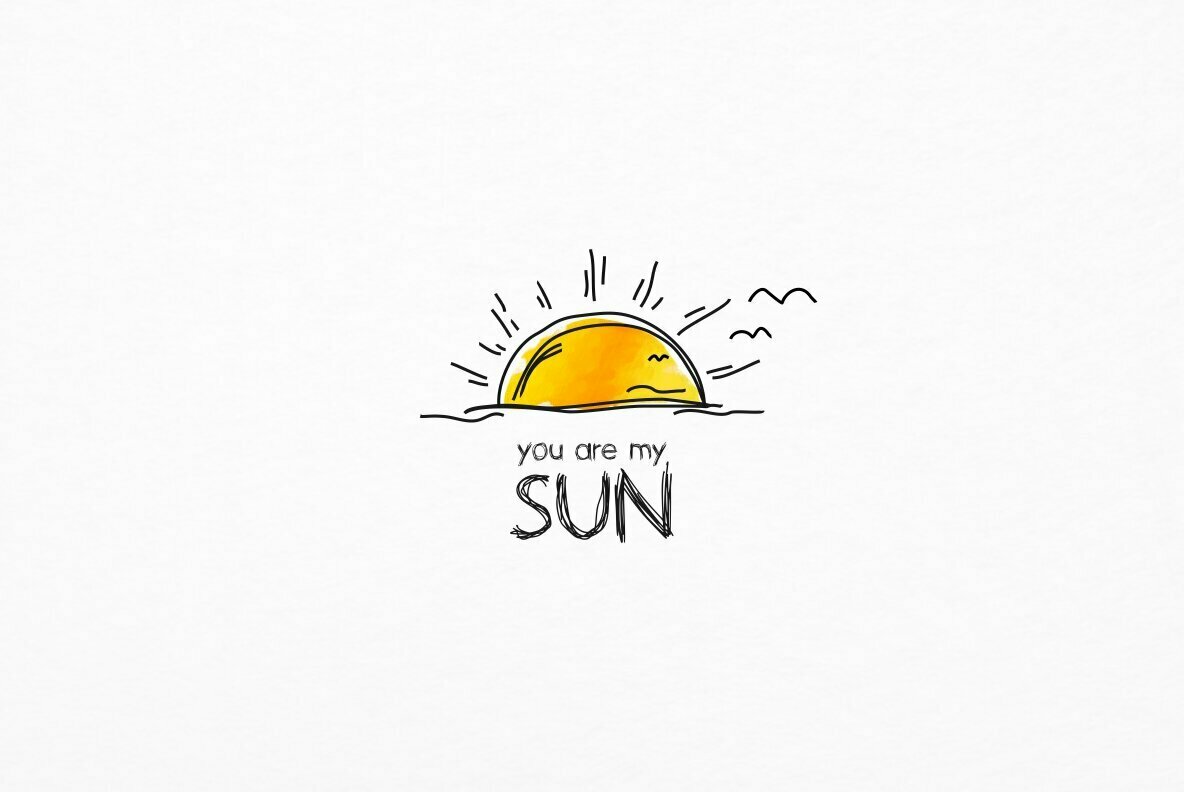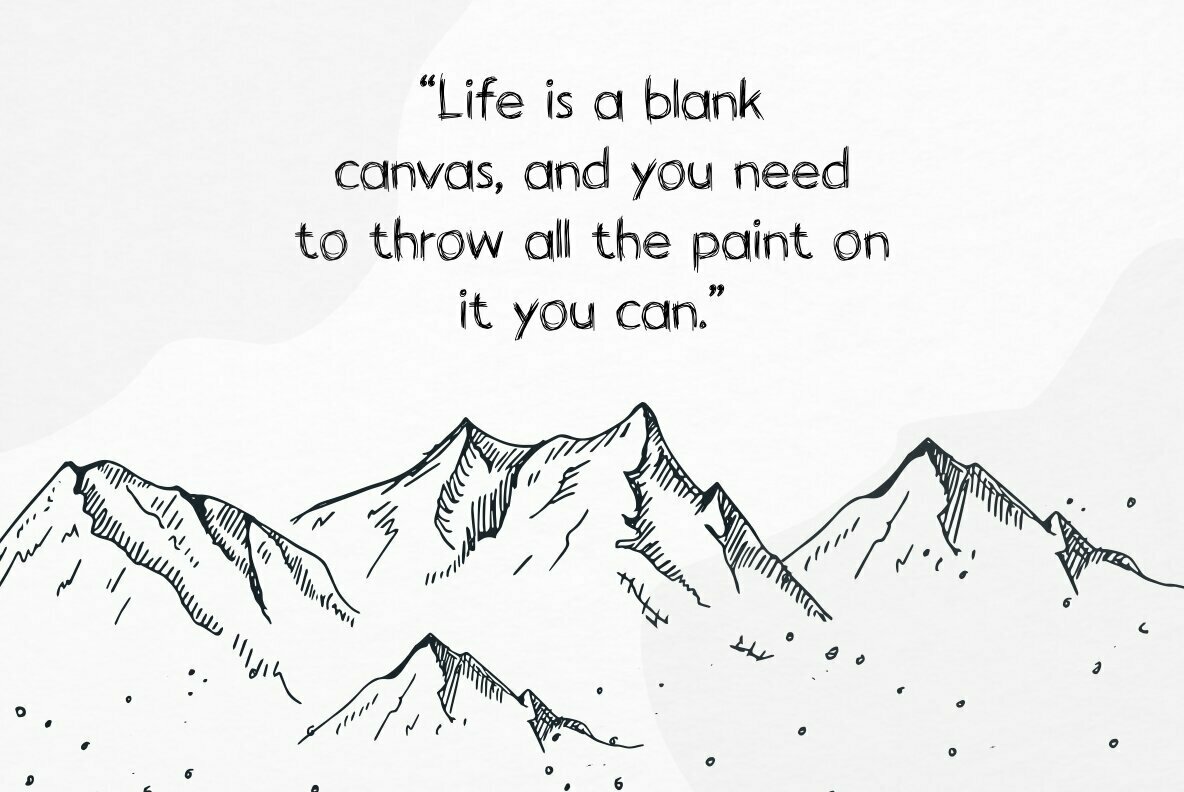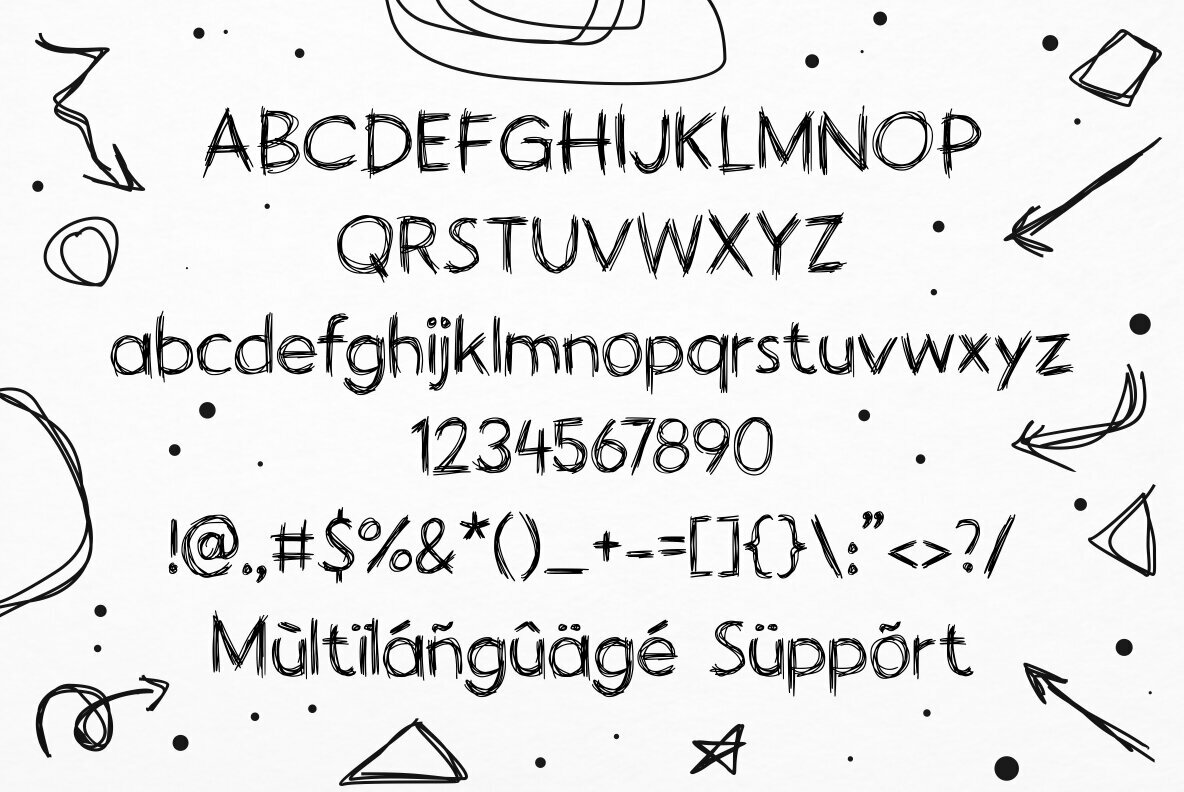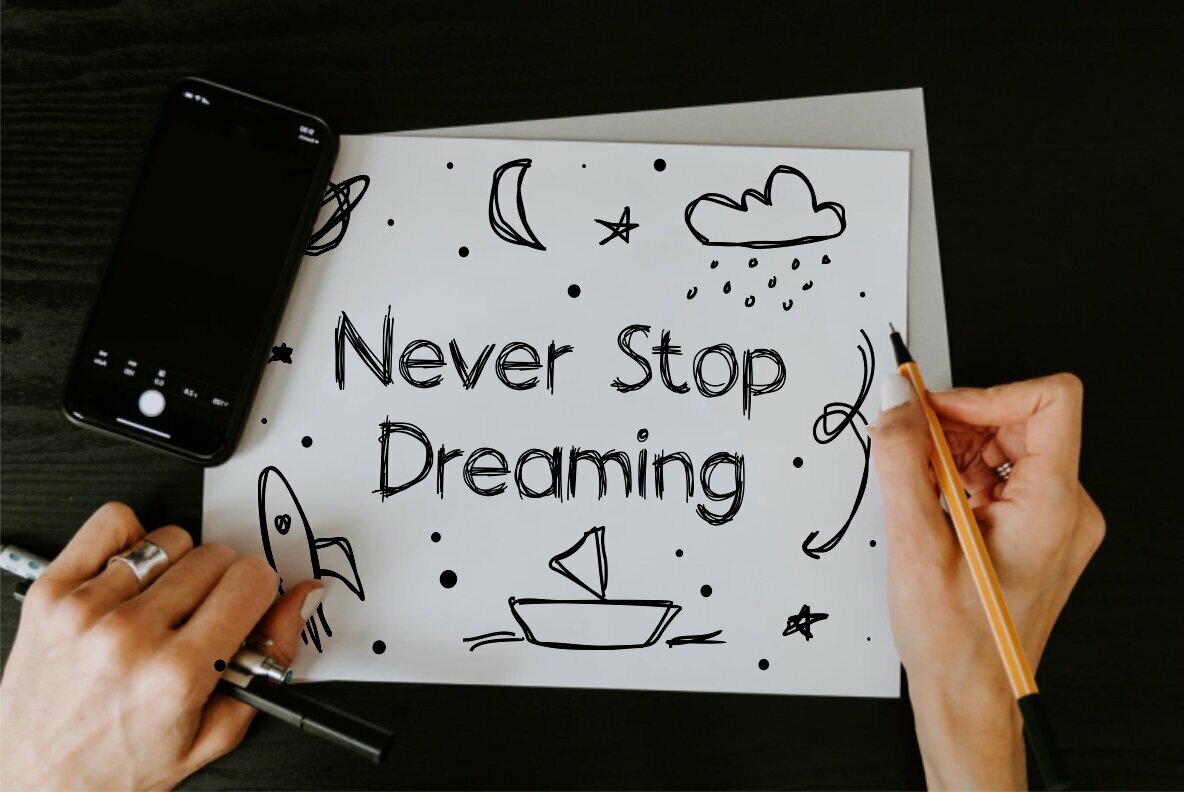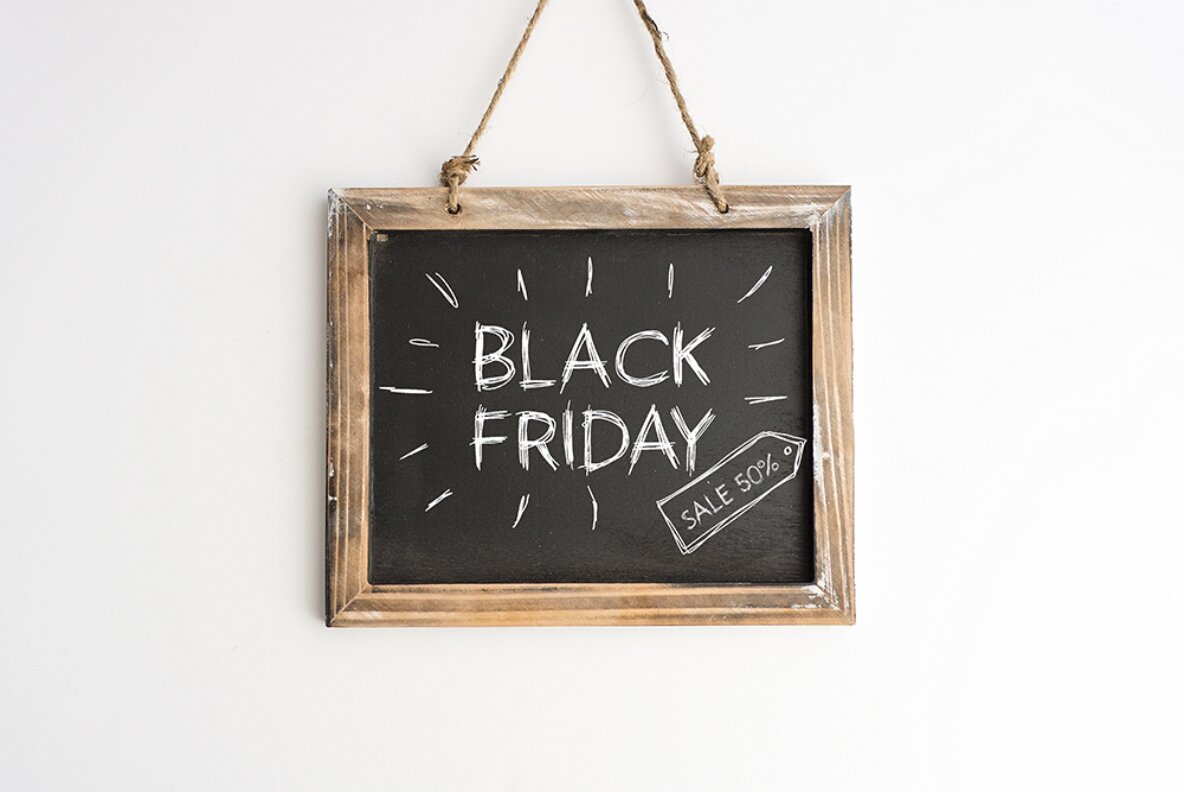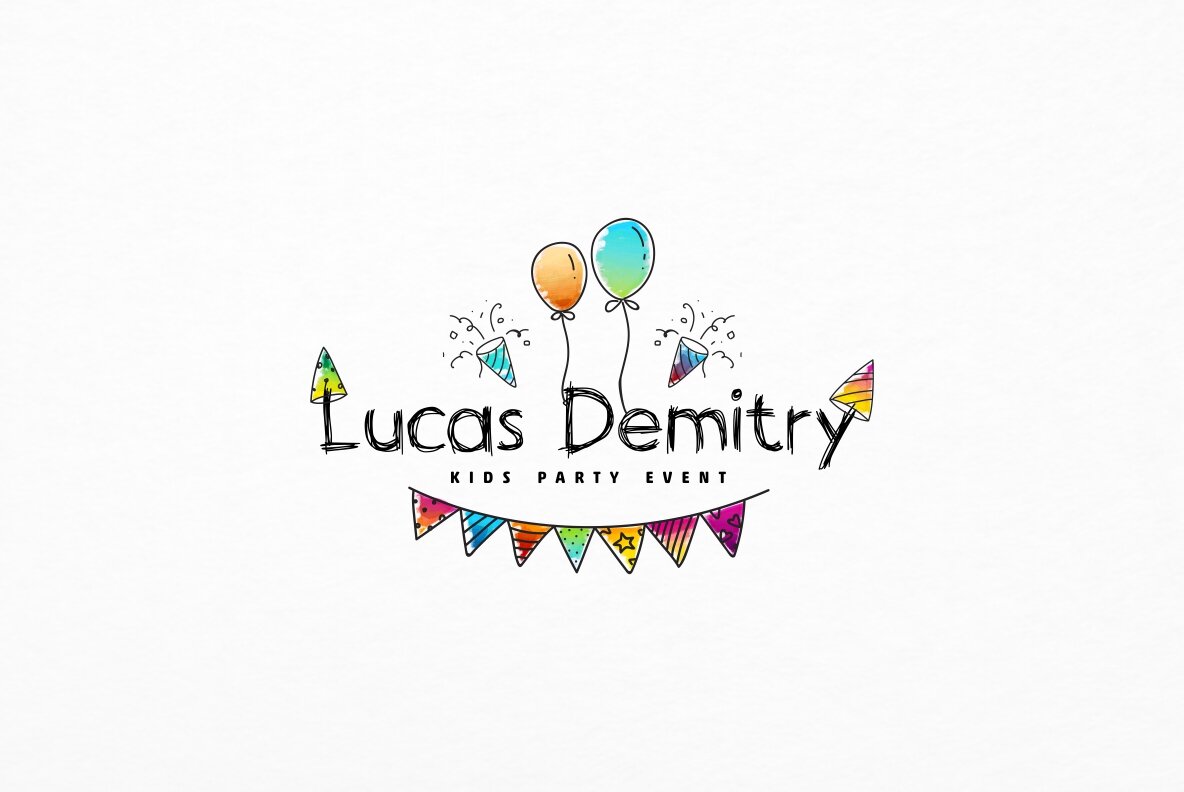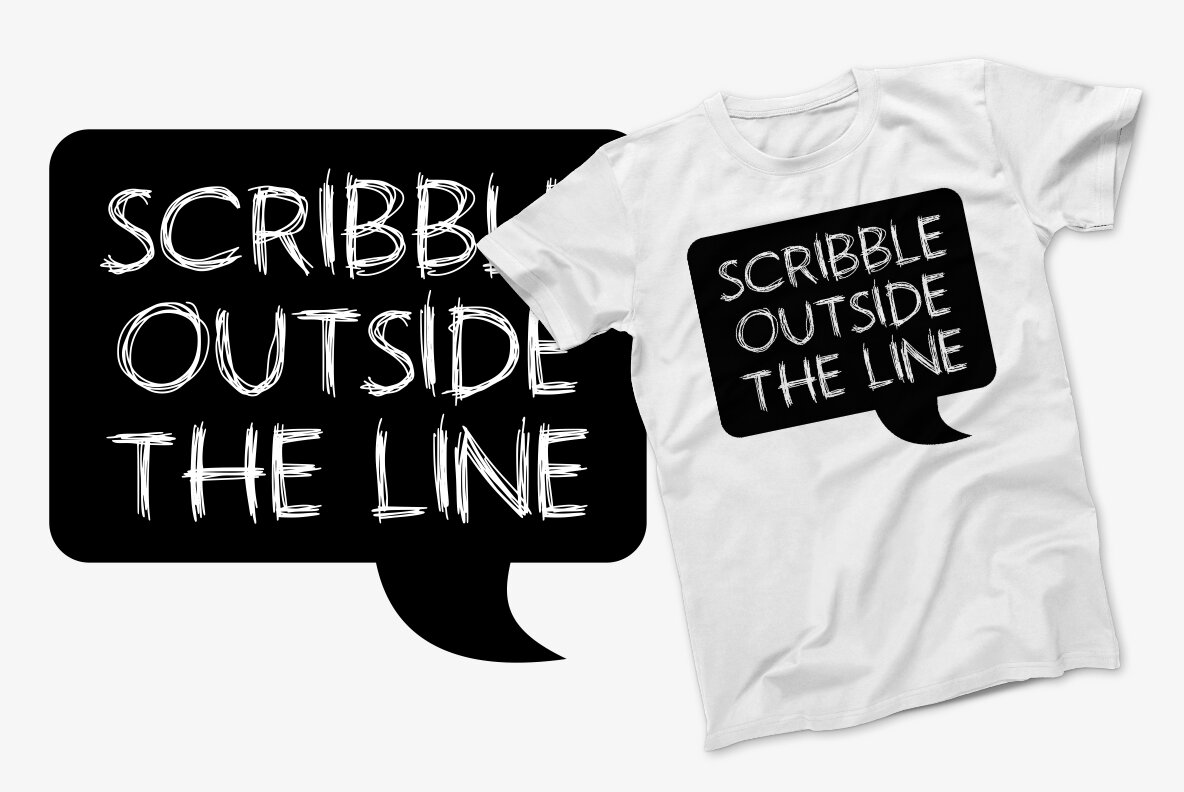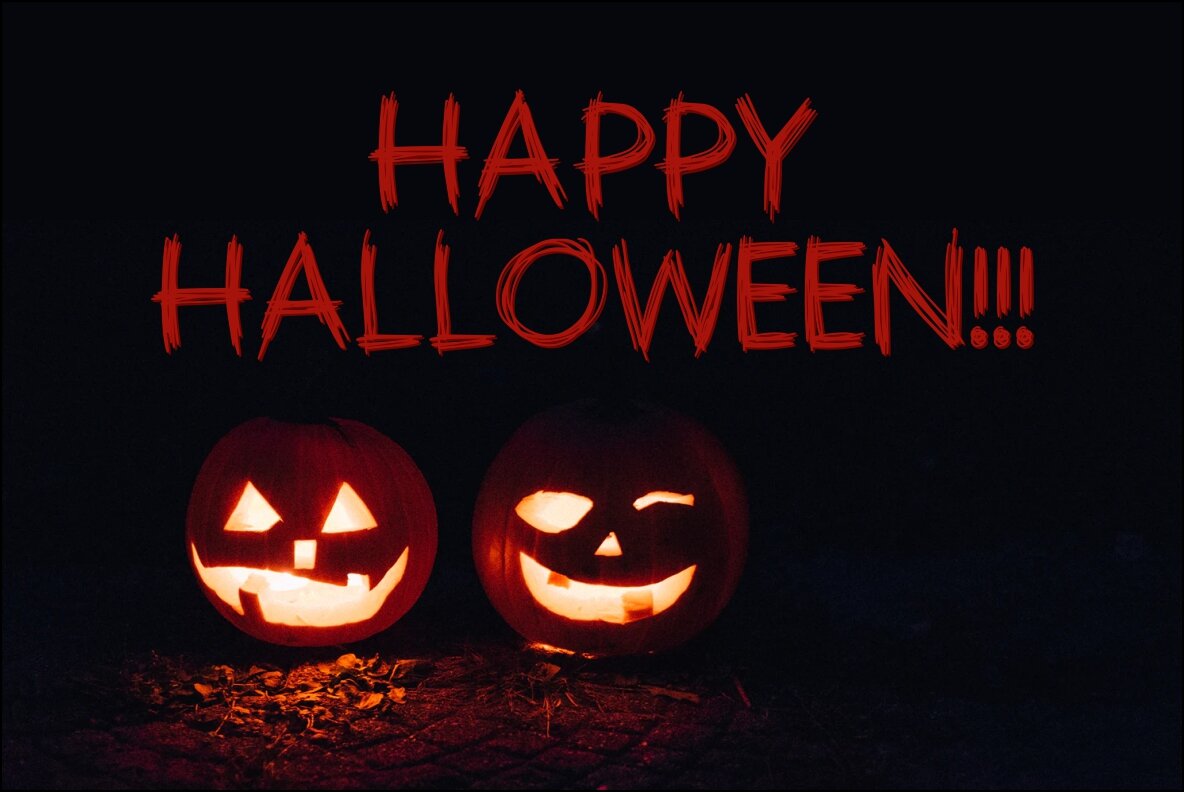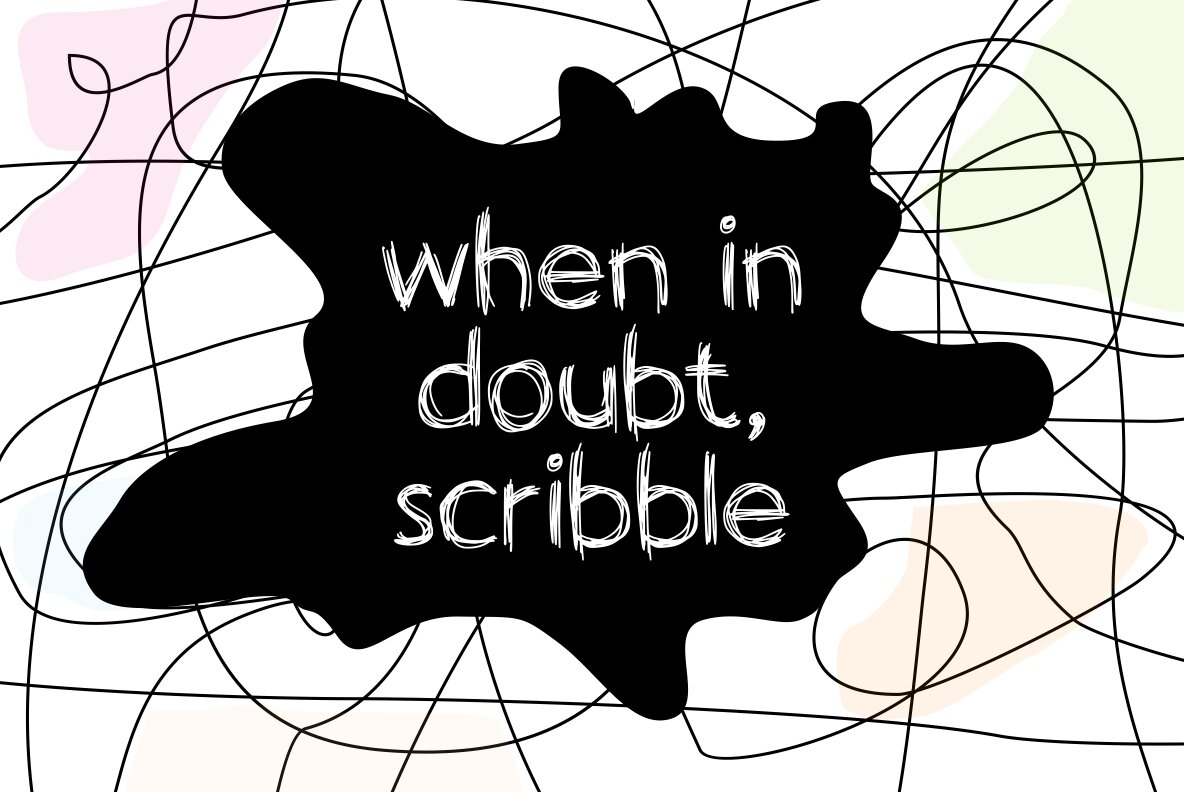
Handodle: A Playful Handwritten Display
Embrace the charm of imperfection with Handodle, a delightful scribbled handwritten font that offers a touch of whimsy to any design project. This font is an excellent choice for creatives looking to infuse projects with rustic character.
The versatility of Handodle makes it ideal for a wide range of applications, whether you're crafting a unique logo or designing an inviting greeting card. Its playful aesthetic is suited for branding, invitations, headings, and much more.
• Upper and Lowercase Letters
• Numbers, Punctuation, and Symbols
• Multilanguage Support